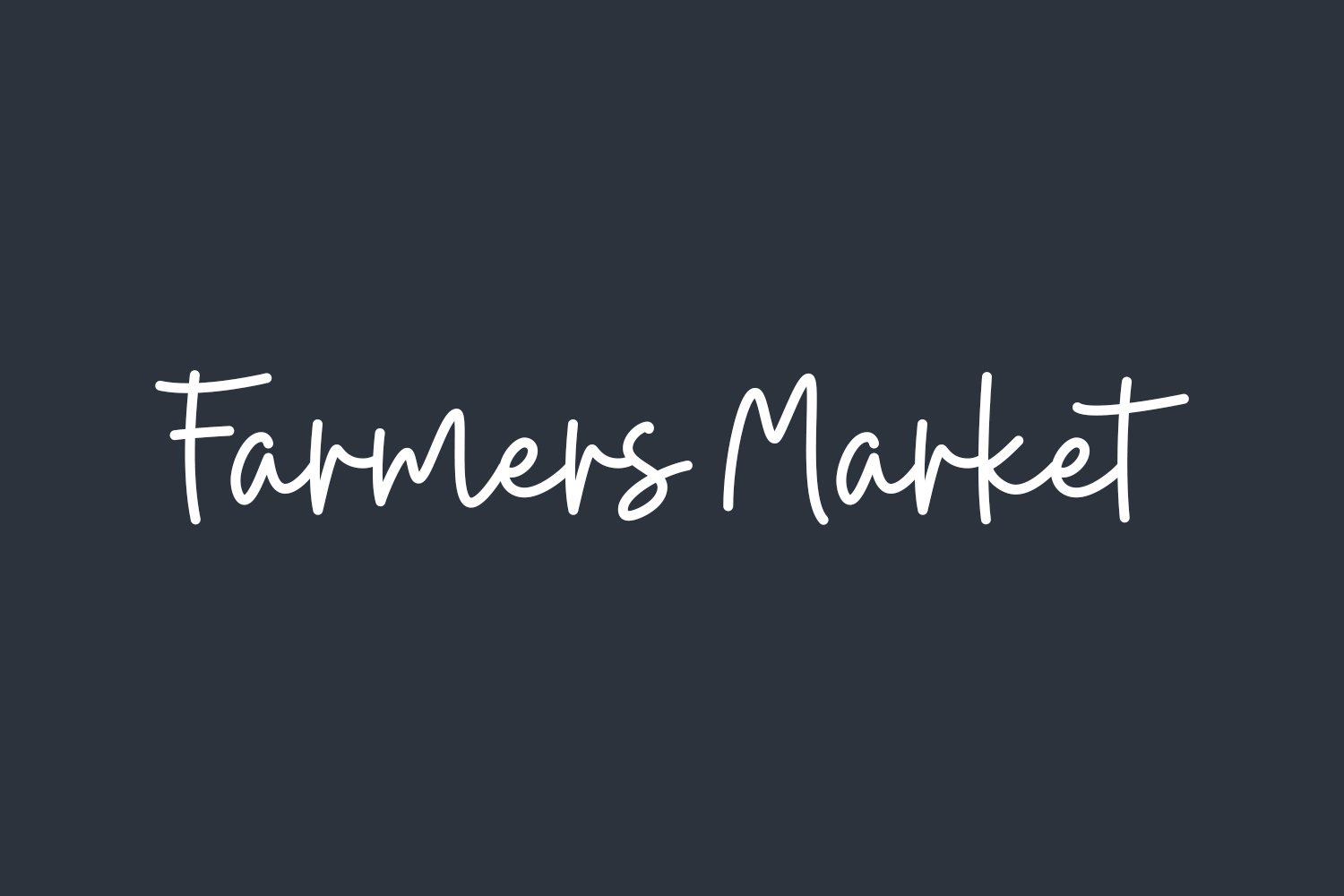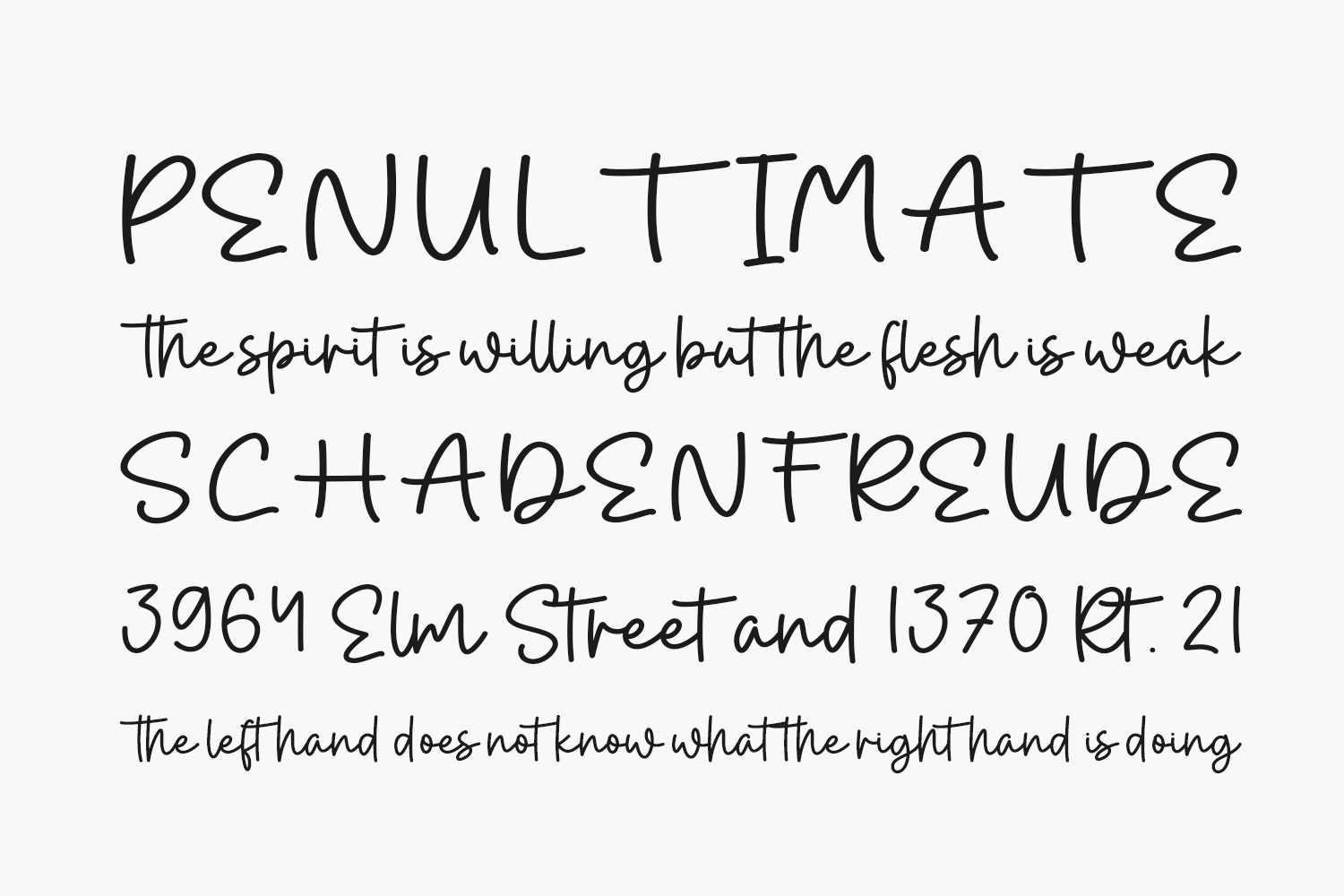
Introducing Farmer Market Free Font, a refined, graceful, and flowing monoline script font. With its beautifully balanced characters, this font adds a touch of delicacy and elegance to a diverse range of designs, making it a versatile choice for your creative projects. Download the font for free if you need it for personal use or purchase the full version for commercial use.
Designed by Graphix Line Studio